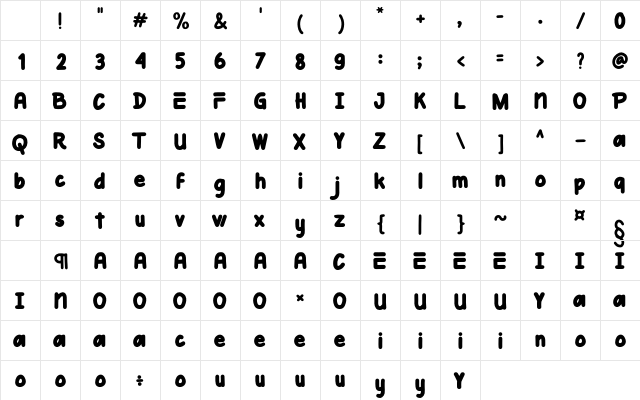
Complete DEL PIPPO Regular glyph index. Displaying only characters natively supported by DEL PIPPO Regular font.
DEL PIPPO is a composed and adaptable typeface that performs quietly and consistently across a wide range of design contexts.